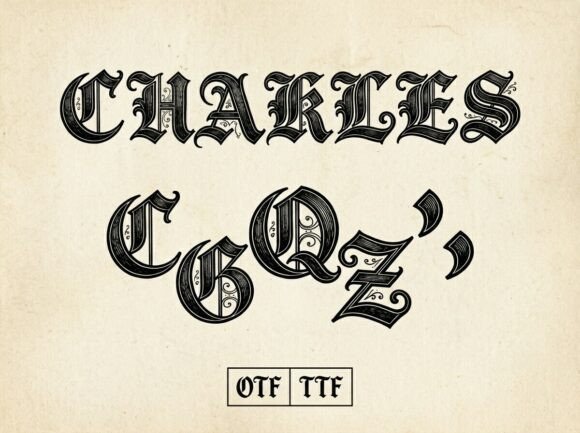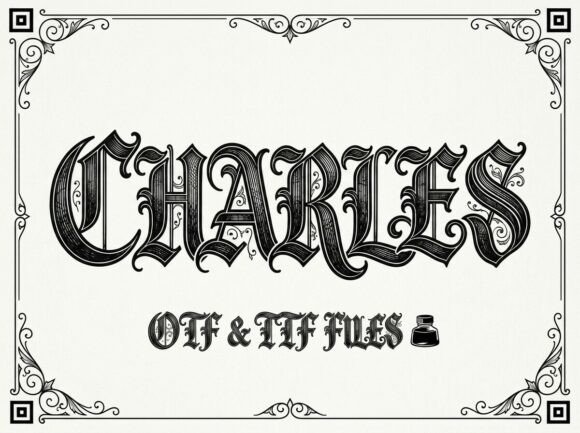
Introducing Charles Font: A Stunning Decorative Display Font
Are you tired of using the same old fonts for your creative projects? Look no further than Charles Font, a breathtaking decorative display font designed to turn heads. With its unique artistic elements and strong visual personality, this font is perfect for creators who want to break away from the ordinary and make a statement.
What Makes Charles Font Special?
Charles Font is a versatile decorative font that is perfect for a variety of creative applications, including bold headlines, artistic logos, and creative packaging. Its stunning design and professional finish make it an ideal choice for designers and crafters who want to add a touch of elegance and sophistication to their work.
Key Features of Charles Font
- Unique Artistic Elements: Charles Font features unique artistic elements that set it apart from other fonts. Its distinctive design makes it perfect for creating eye-catching headlines, logos, and decorative initials.
- Strong Visual Personality: This font has a strong visual personality that is sure to grab attention. Its bold and striking design makes it perfect for creative projects that require a touch of drama and flair.
- Versatile: Charles Font is versatile enough for use in a variety of creative applications, including bold headlines, artistic logos, and creative packaging.
- Professional Finish: Despite its bold and artistic design, Charles Font maintains a professional and polished finish that is perfect for high-end creative projects.
⚠️ IMPORTANT NOTE BEFORE PURCHASE: Charles Font is an ALL-CAPS (Uppercase Only) display typeface. It does not include lowercase letters. It is specifically designed for high-impact headlines, logos, and decorative initials where every letter is a work of art.
Why Choose Charles Font?
There are many reasons why Charles Font is an excellent choice for designers and crafters. Here are just a few:
- Add a Touch of Elegance: Charles Font adds a touch of elegance and sophistication to any creative project.
- Stand Out from the Crowd: With its unique artistic elements and strong visual personality, Charles Font is sure to help your creative project stand out from the crowd.
- Perfect for Creative Projects: Charles Font is perfect for a variety of creative projects, including bold headlines, artistic logos, and creative packaging.
Tips for Using Charles Font
Here are a few tips for using Charles Font in your creative projects:
- Use it for Headlines: Charles Font is perfect for use in bold headlines and titles.
- Create Artistic Logos: Use Charles Font to create artistic logos that are sure to grab attention.
- Add a Touch of Drama: Charles Font is perfect for adding a touch of drama and flair to your creative projects.
In conclusion, Charles Font is a stunning decorative display font that is perfect for creators who want to break away from the ordinary and make a statement. With its unique artistic elements, strong visual personality, and professional finish, this font is sure to add a touch of elegance and sophistication to any creative project. So why wait? Purchase Charles Font today and take your creative projects to the next level!